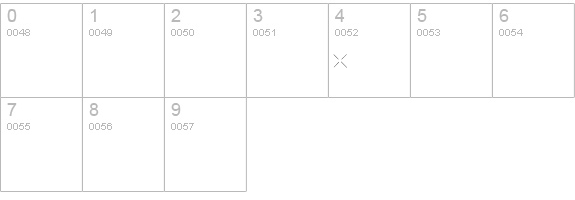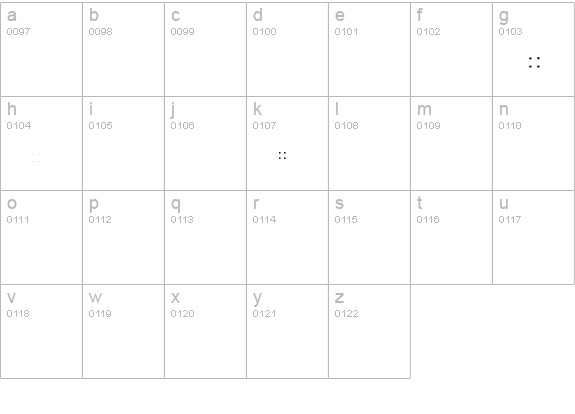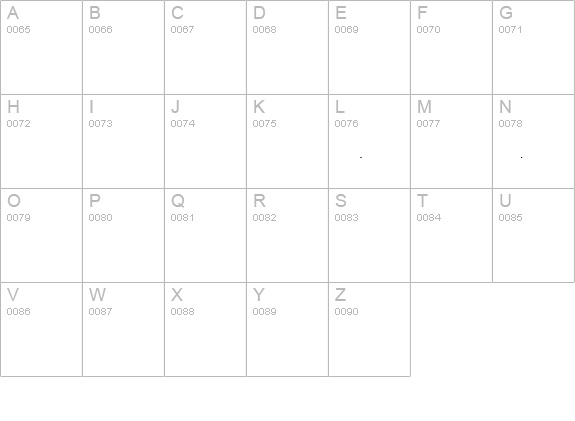
PFOrnmTreasures2-Layer7 font is a stunning display font that exudes elegance and sophistication. This font is perfect for adding a touch of luxury to your designs, whether it's for invitations, branding, or packaging. The intricate details and ornamental elements of this font make it truly stand out. The best part? PFOrnmTreasures2-Layer7 font is available for free download at FontsMarket.com. You can easily elevate your projects with this eye-catching font without having to spend a dime. Don't miss out on the opportunity to enhance your designs with this exquisite typeface. Download PFOrnmTreasures2-Layer7 font today and let your creativity shine.